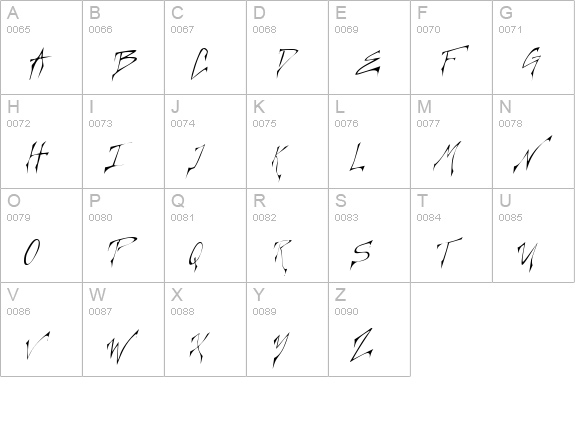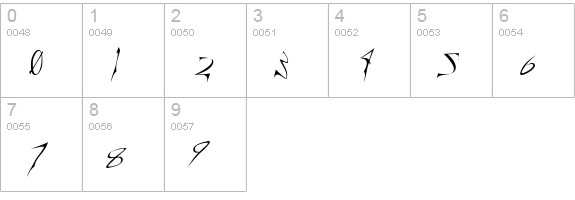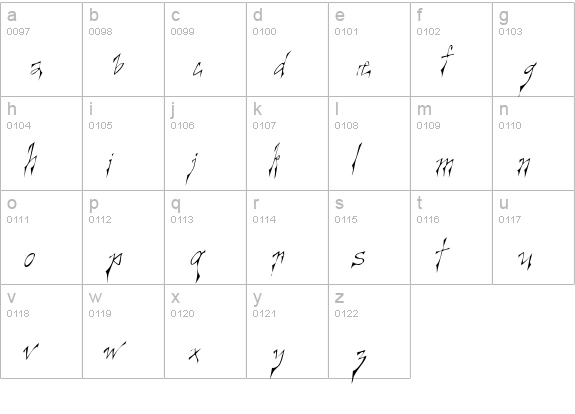
Creepygirl LightOblique Font Details
Creepygirl LightOblique font is a hauntingly beautiful typeface that exudes an air of mystery and intrigue. Its slanted, ethereal design gives off a sense of otherworldly elegance that is sure to captivate any audience. The delicate curves and sharp angles of this font create a unique blend of creepiness and sophistication, making it perfect for adding a touch of mystique to your projects. What sets Creepygirl LightOblique font apart is not just its eerie charm, but also the fact that it is available for free download at FontsMarket.com. This means that you can easily incorporate this captivating typeface into your designs without any cost, making it a valuable resource for any creative project. Whether you're working on a spooky Halloween invitation or a chilling horror-themed poster, Creepygirl LightOblique font is sure to add an extra layer of intrigue and style. Download it today and unleash the mysterious allure of this enchanting font in your designs.